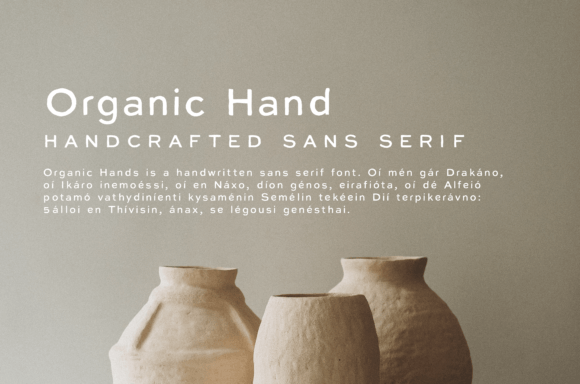
Introducing the Organic Hand Font, a captivating and unique addition to your font collection. Created by the talented designers at Pretty Decadent, this font combines the clean minimalism of a sans-serif with the originality of a handcrafted font.
With its stylish and organic appearance, Organic Hand is perfect for a variety of purposes. Whether you're looking to enhance your branding, create eye-catching social media posts, design stunning invitations, or add a touch of boho to your projects, this font has got you covered.
The versatility of Organic Hand allows you to unleash your creativity and bring your ideas to life. Its cool and trendy vibe will instantly elevate your designs, making them stand out from the crowd.
Imagine the impact of using this font for your tattoo designs. The simplicity and elegance of Organic Hand will ensure that your tattoos are not only visually stunning but also meaningful. Each stroke of the font will beautifully capture your emotions, creating a lasting impression on anyone who sees it.
Organic Hand is more than just a font – it's a reflection of your unique personality and style. Its handcrafted nature adds a touch of authenticity and charm to your projects, making them truly one-of-a-kind.
Experience the power of Organic Hand and unlock a world of endless possibilities. Let this font be your creative companion, inspiring you to create amazing designs that leave a lasting impression.
Join the community of satisfied users who have already discovered the magic of Organic Hand. Embrace the beauty of this font and watch as it transforms your projects into works of art.
Upgrade your font collection today with Organic Hand – the perfect blend of cool, trendy, and original. Unleash your creativity and make a statement with every stroke.